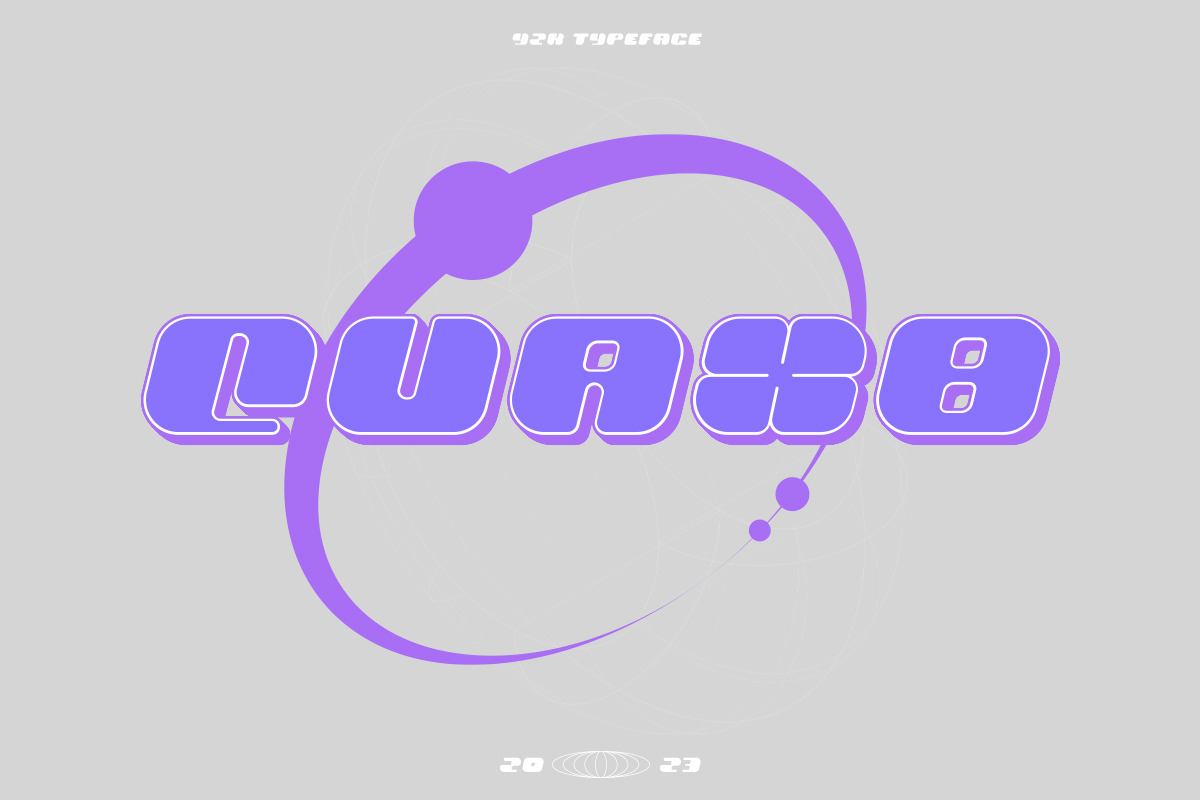
QUAX8 - Y2K Display Font Free Download
QUAX8 Y2K Display Font Free Download
QUAX8 Y2K Display Font Free Download is a bold and futuristic typeface inspired by the early 2000s digital aesthetic. With its sleek lines, sharp edges, and tech-inspired design, this font is perfect for creating modern logos, digital interfaces, gaming branding, music posters, and anything with a futuristic vibe.
Designed to capture the essence of the Y2K era, QUAX8 Y2K Display Font Free Download adds a retro-futuristic touch to your typography, making it ideal for projects that want to evoke the digital age's bold, cutting-edge style.